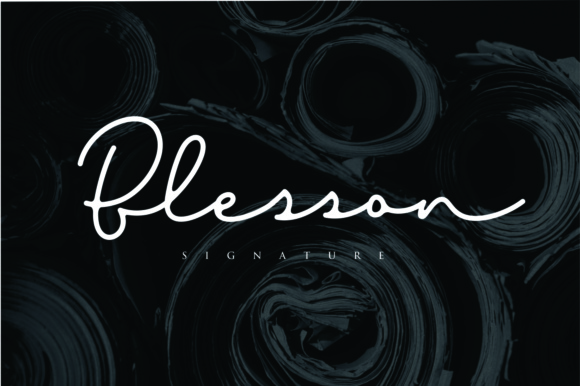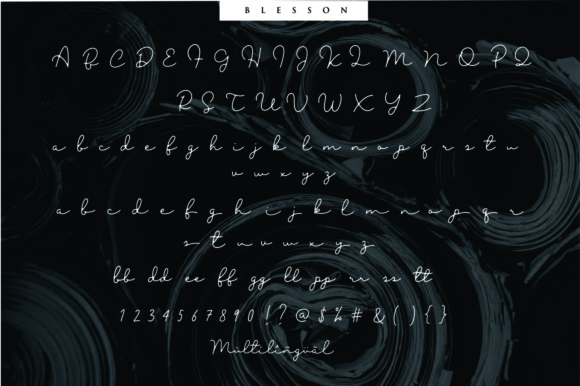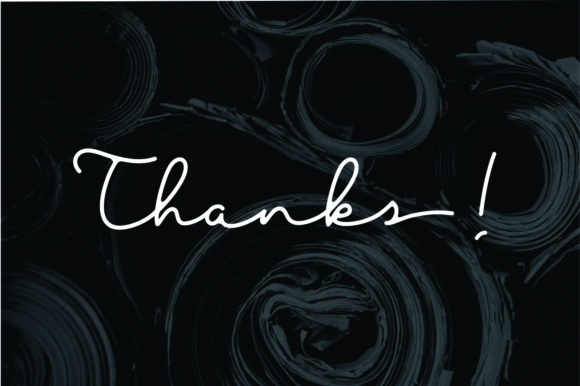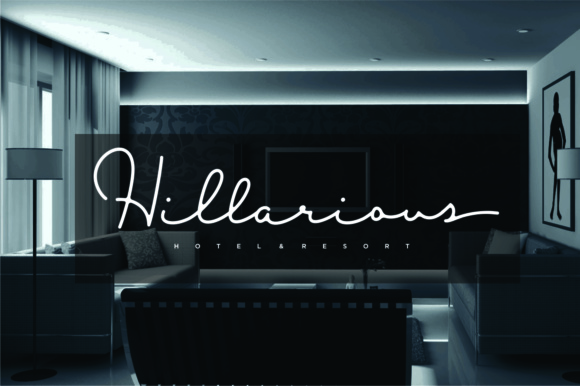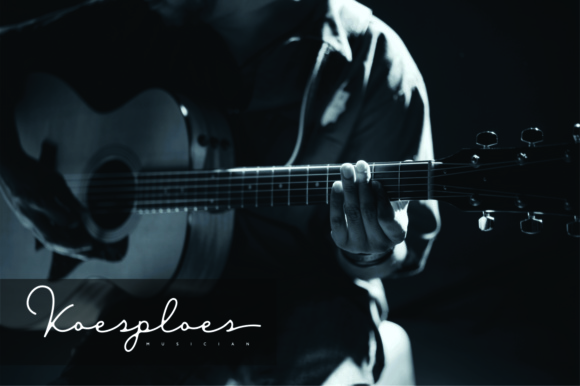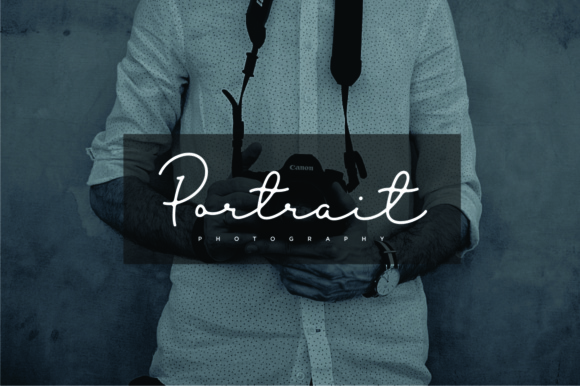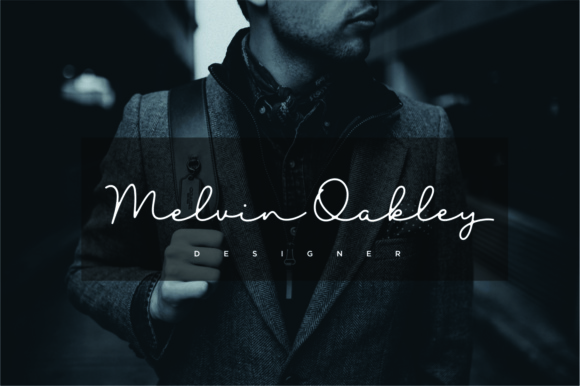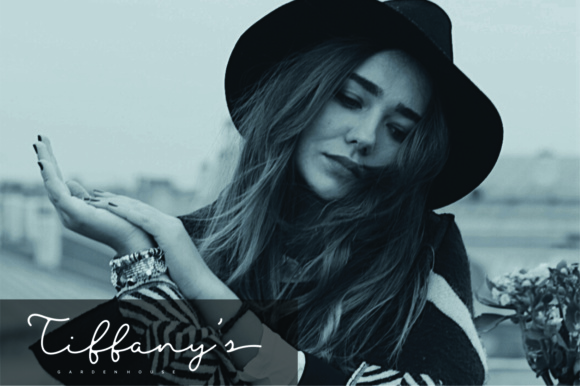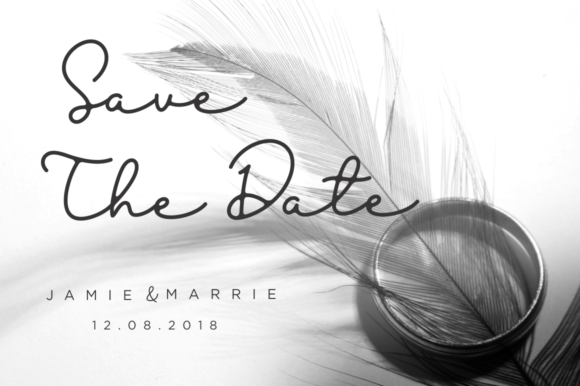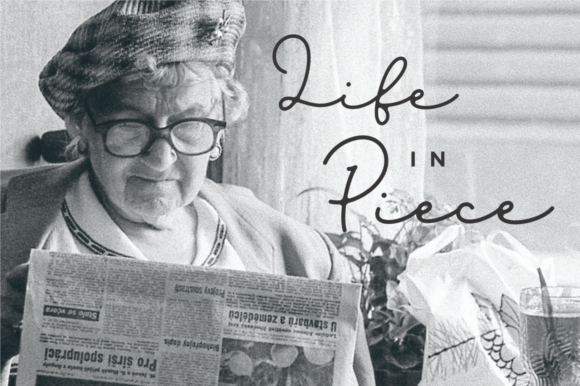
Blesson Font
About Blesson Font
Blesson is a new, modern signature typeface. It’s fine strokes and elegant lines make it perfect for personal branding and any other awesome project such as: logos, invitations, stationery, wedding designs, social media posts, advertisements, product packaging and much more!